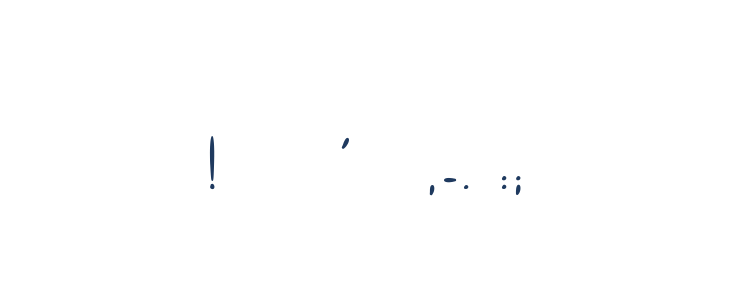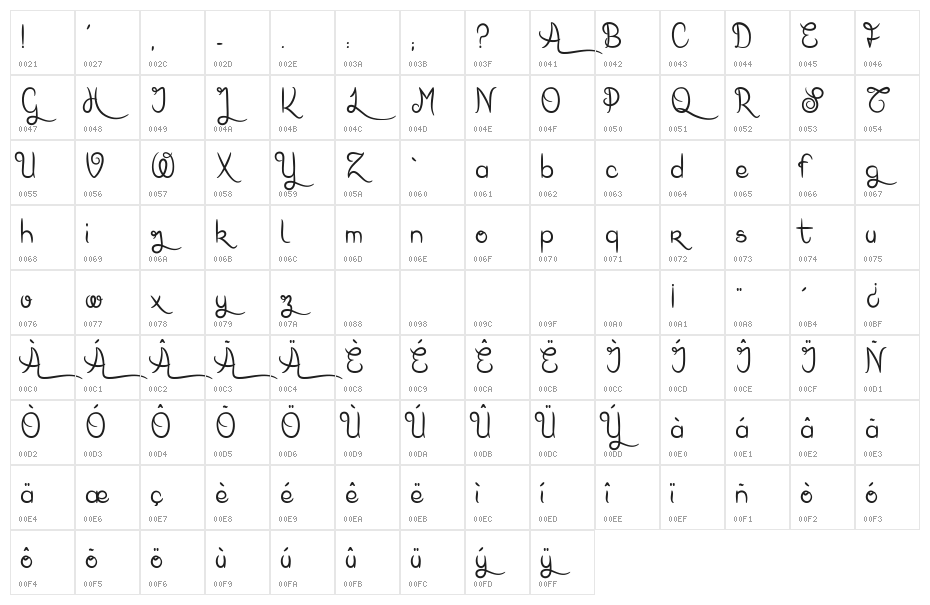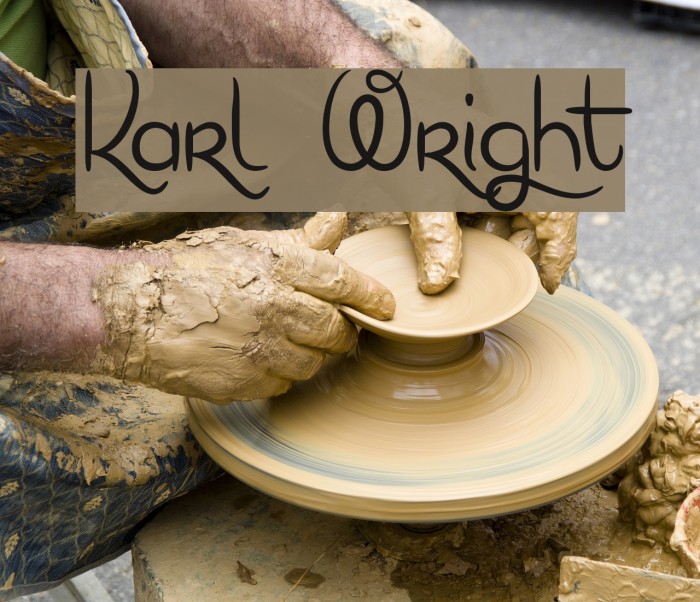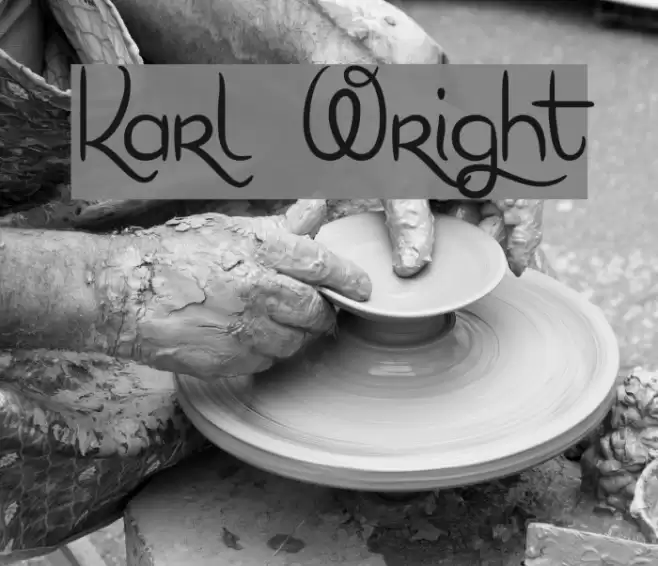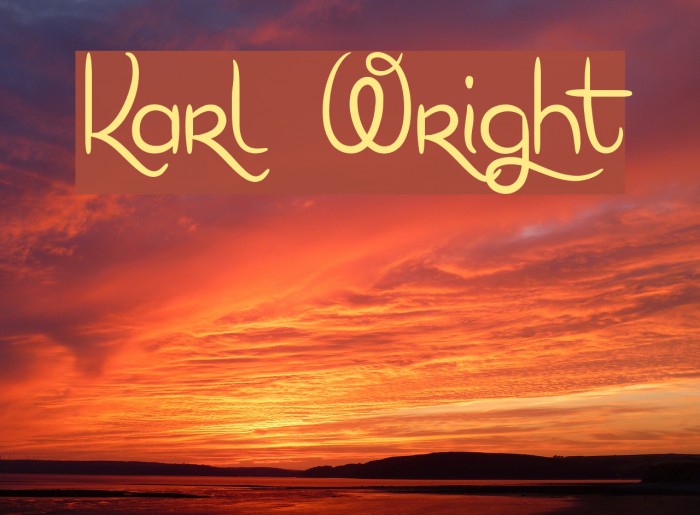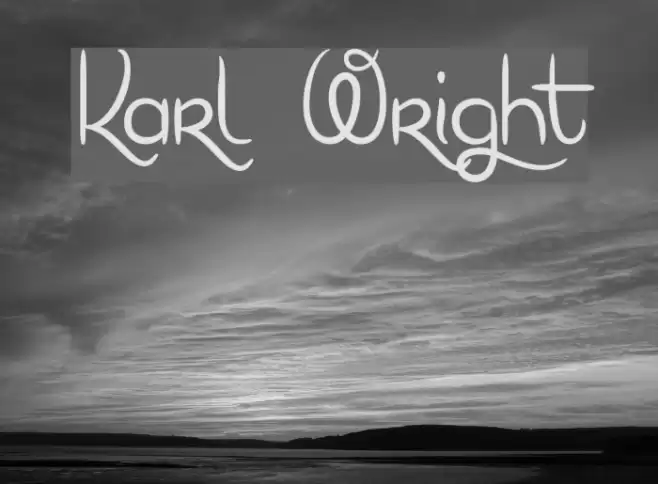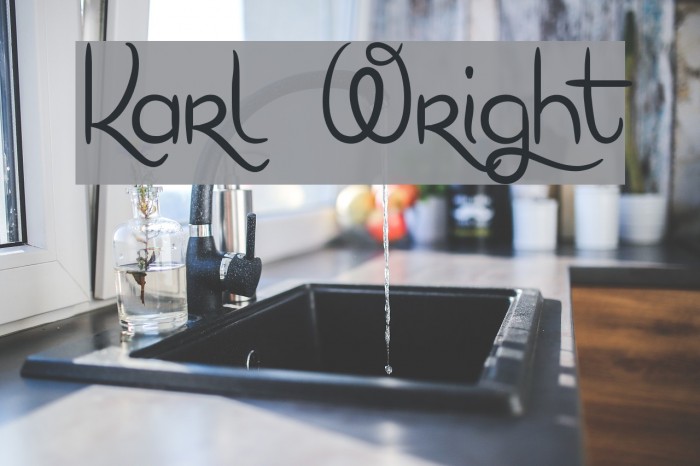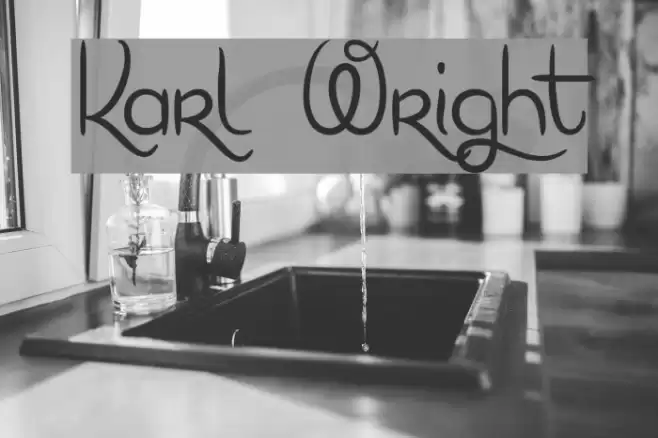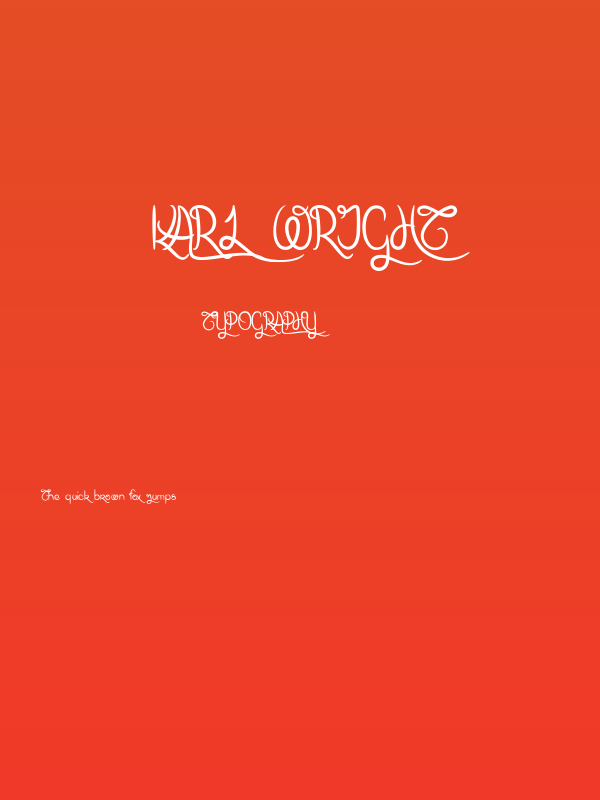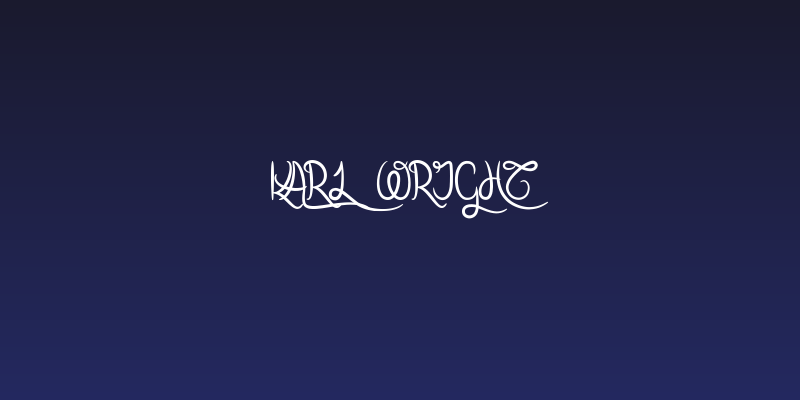
Karl Wright Font
Karl Wright Description
This font features an elaborate and decorative style with intricate swirls and flourishes that extend from the characters, giving it a whimsical and artistic appearance. The uppercase letters are particularly ornate, with exaggerated curves and loops that create a sense of movement and fluidity. The lowercase letters maintain a more restrained elegance, yet still carry the decorative theme with subtle embellishments. The overall design is reminiscent of calligraphy, blending traditional script elements with a modern twist. The font's unique character shapes and embellishments make it stand out, ideal for creative and expressive design projects.
| Use Case | Headlines, Artistic projects, Invitations |
| Proposed Projects | Ideal for wedding invitations, greeting cards, artistic posters, and branding that requires a touch of elegance and creativity. |